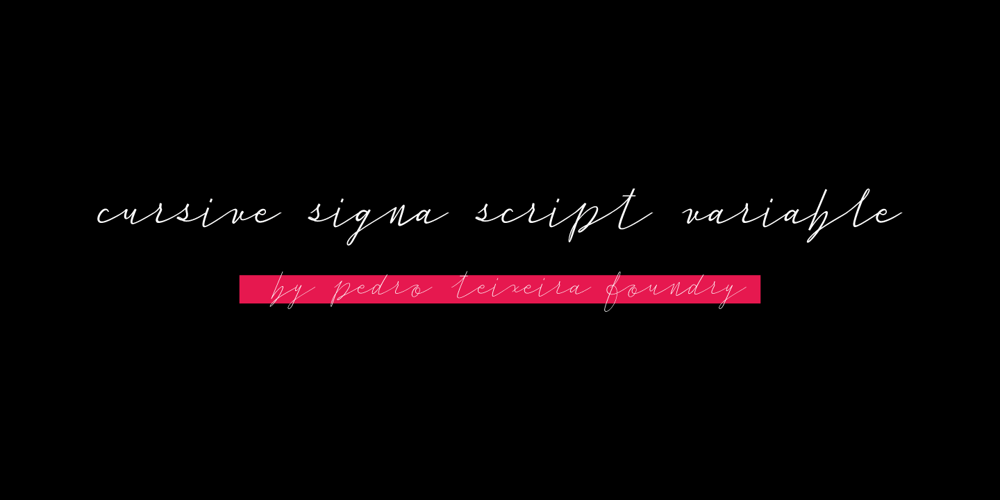
Cursive Signa Script Variable Font Family was designed by Pedro Teixeira and published by Pedro Teixeira. Cursive Signa Script Variable contains 1 styles and family package options. Cursive Signa Script Variable, quite possibly the first true cursive and signature variable font. It has 90 styles that range between weight, slant and alternates. It can be use in a lot of projects, like logos, end of a statement, pairing with a beautiful sans serif like Aleante, in a title, invites and so on. Designed by Pedro Alexandre Teixeira